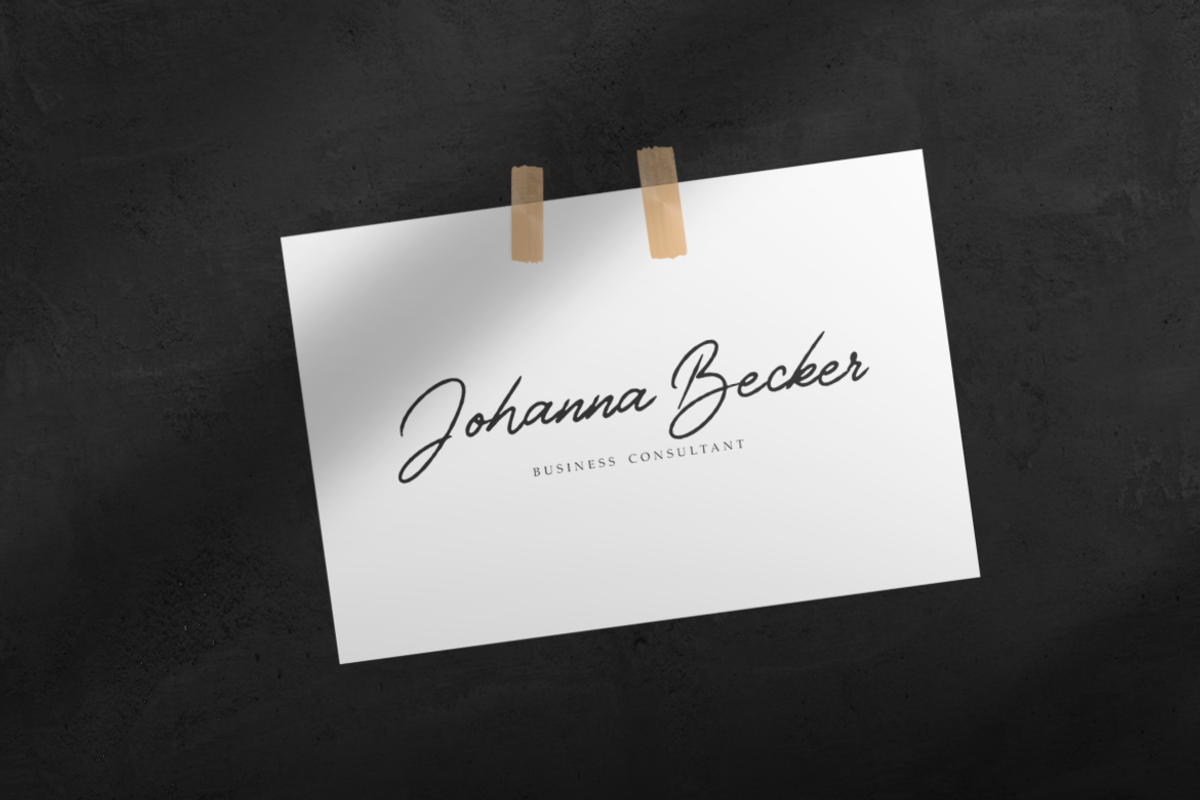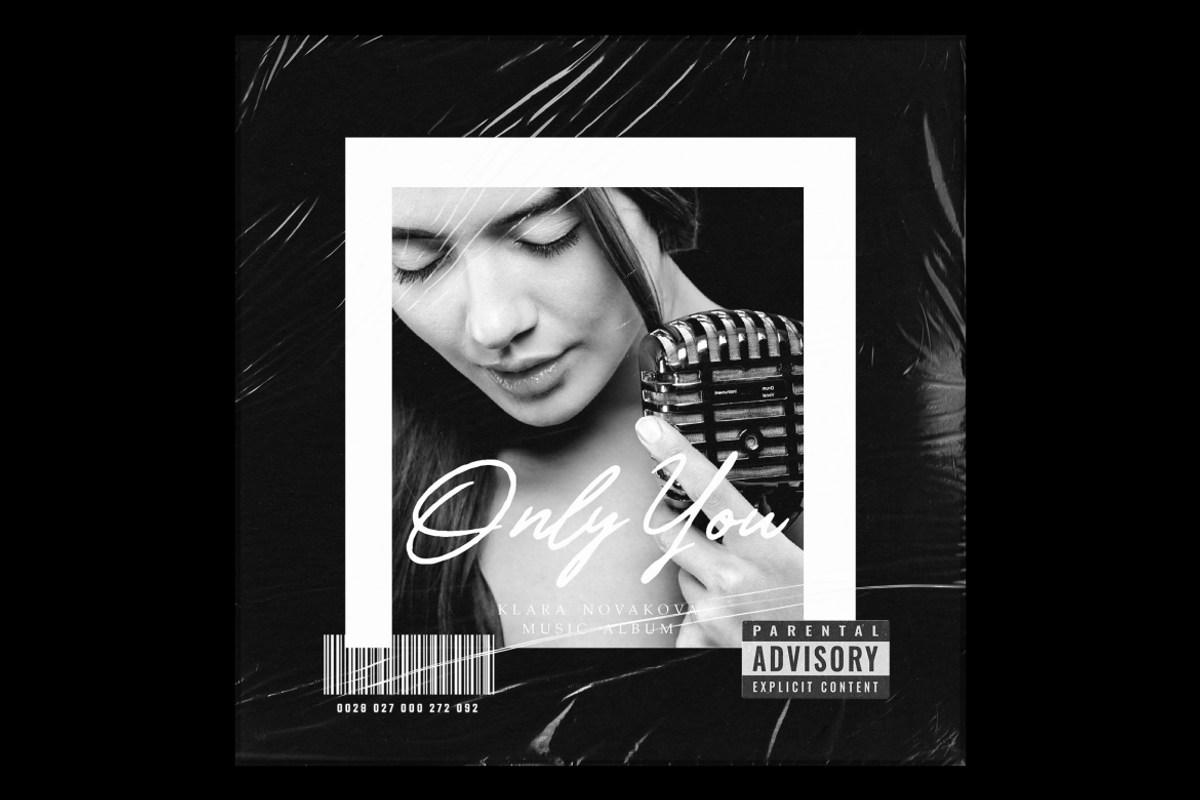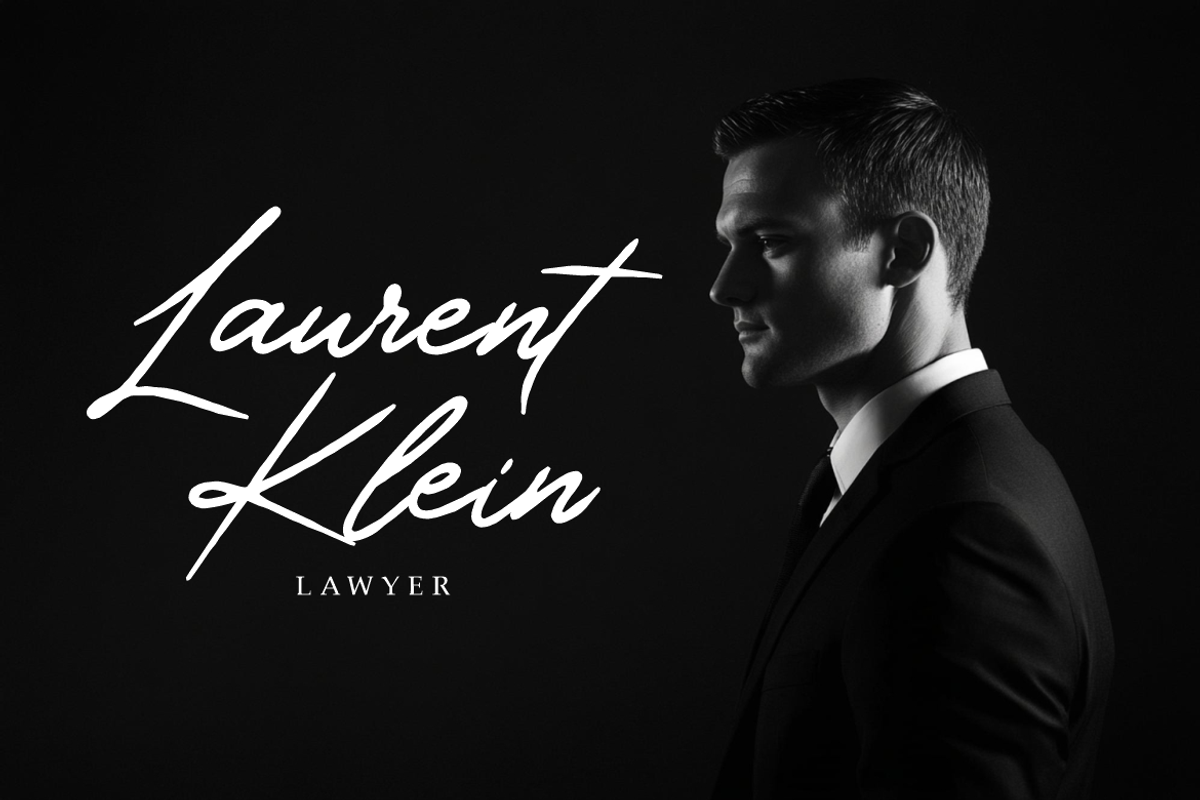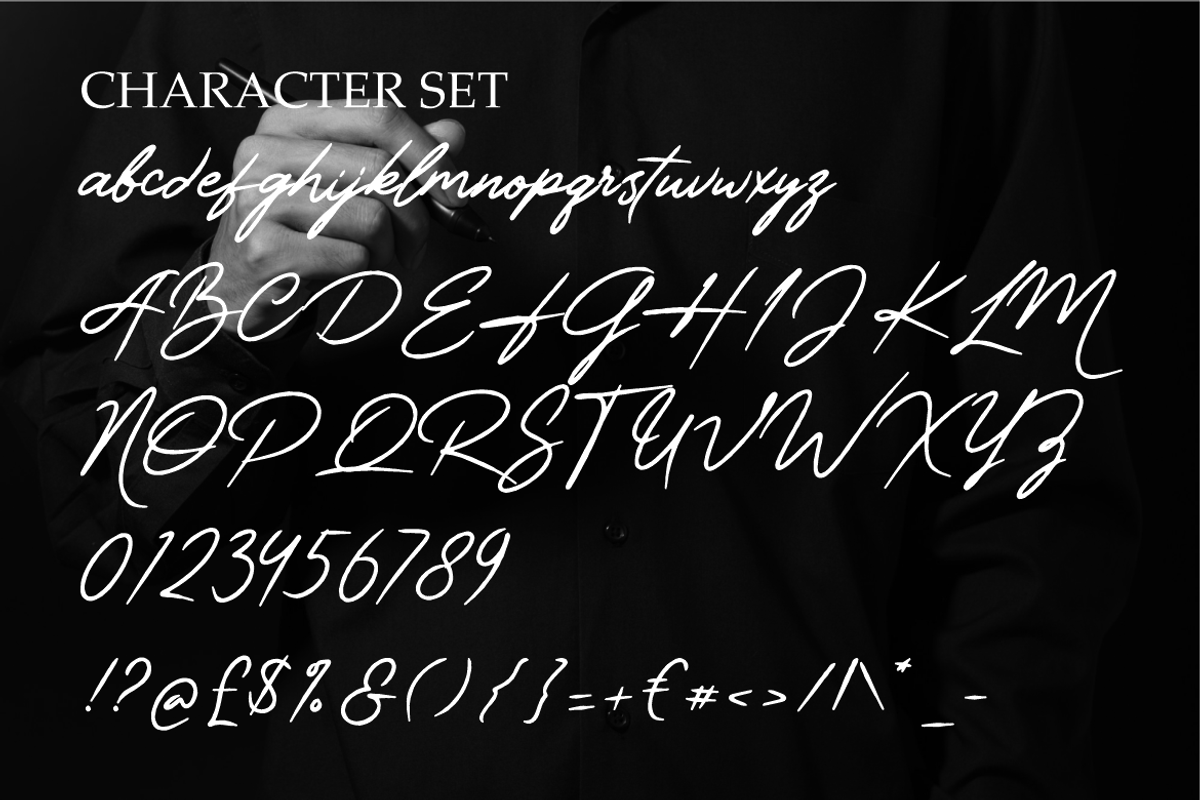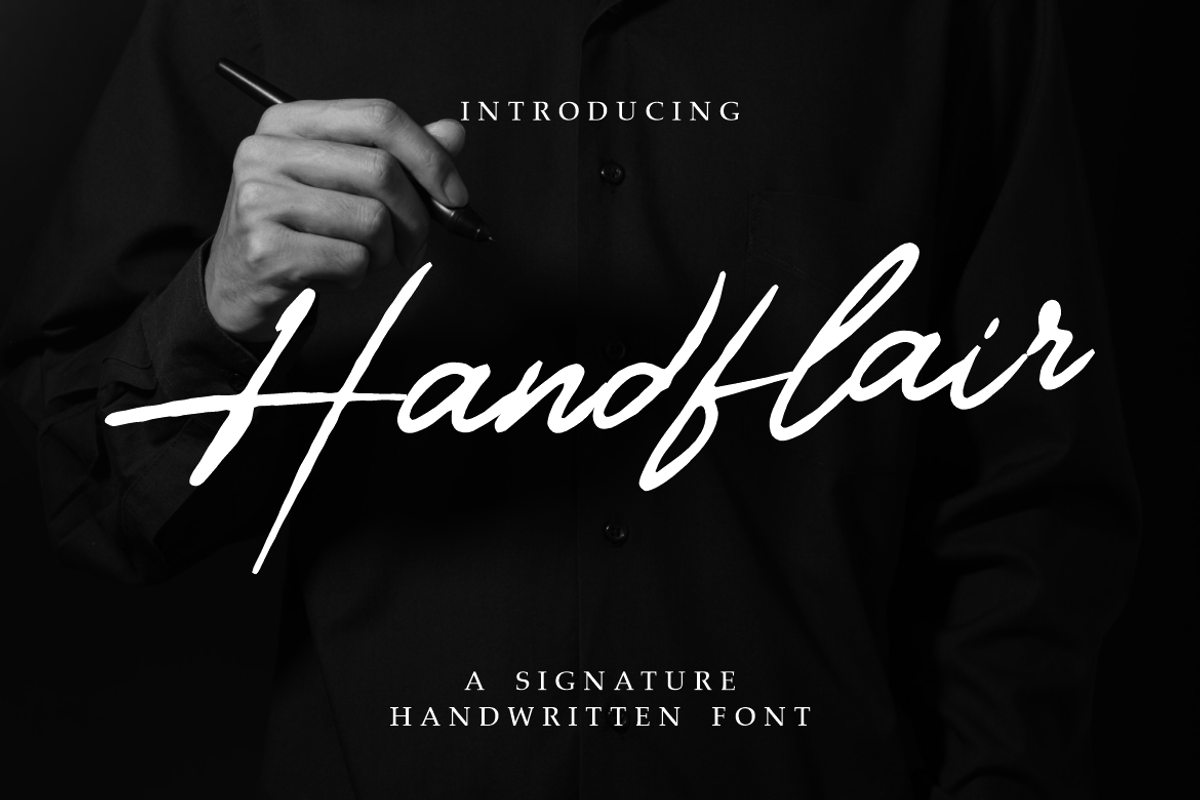
Handflair Signature Font
Handflair Signature Font is a sophisticated handwritten typeface designed to capture elegance, personality, and refined charm. Its smooth, flowing strokes resemble authentic penmanship, making it ideal for projects that require a touch of exclusivity and professionalism. Each letter is crafted with natural curves and stylish connections, balancing modern simplicity with luxury. The font’s graceful appearance ensures versatility, working beautifully across both digital and print designs. From personal branding to luxury product packaging, Handflair Signature Font adds authenticity and flair to every project.
The font layout emphasizes clarity and artistry, with uppercase characters exuding confidence and lowercase forms maintaining fluidity. It pairs perfectly with fashion branding, wedding invitations, book covers, and film titles. Its polished cursive style creates memorable signatures for logos, business cards, and elegant advertising campaigns. Handflair Signature Font brings sophistication without compromising readability, making it a must-have for designers seeking timeless style. With its versatility and classic handwritten appeal, this font elevates any visual identity into something distinctive and unforgettable.